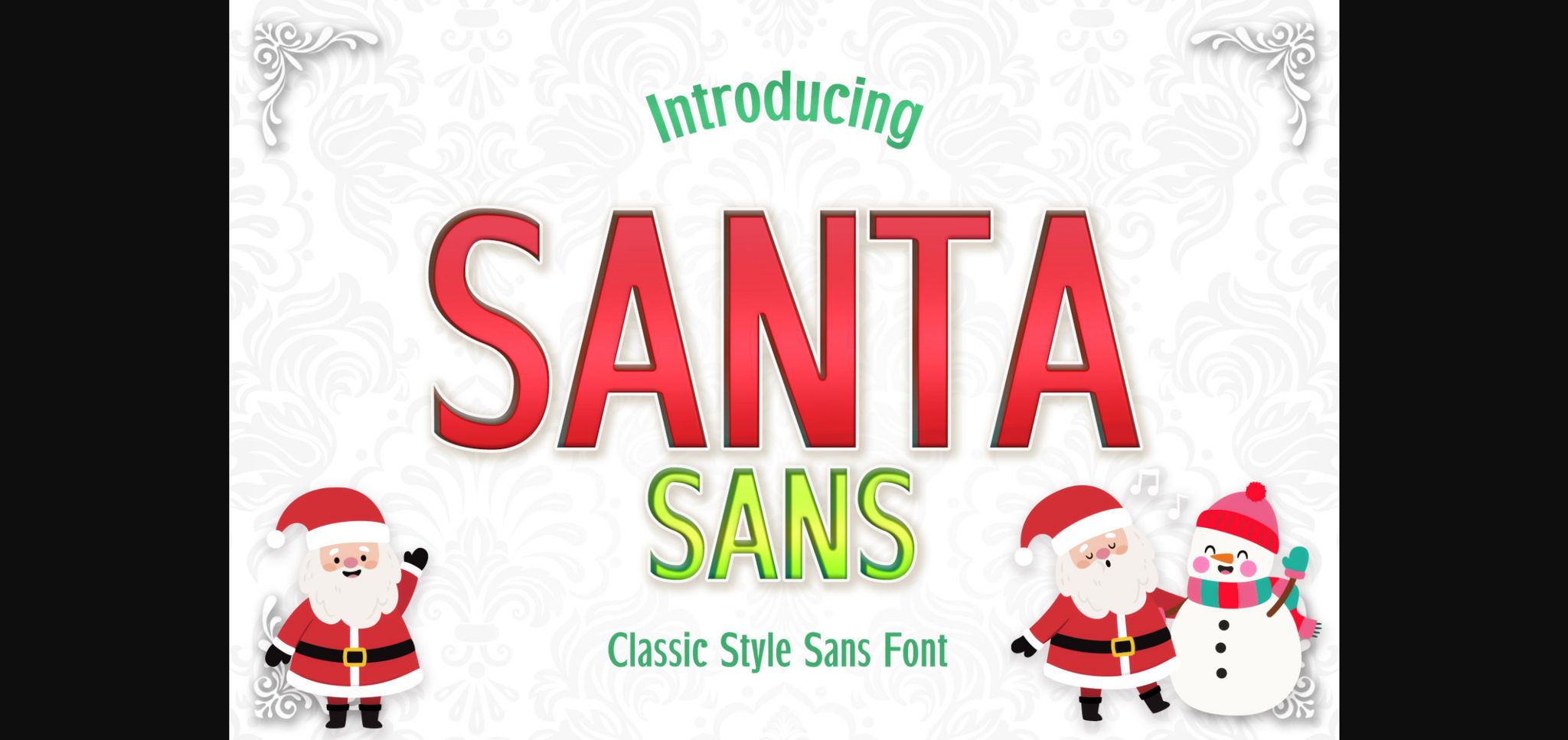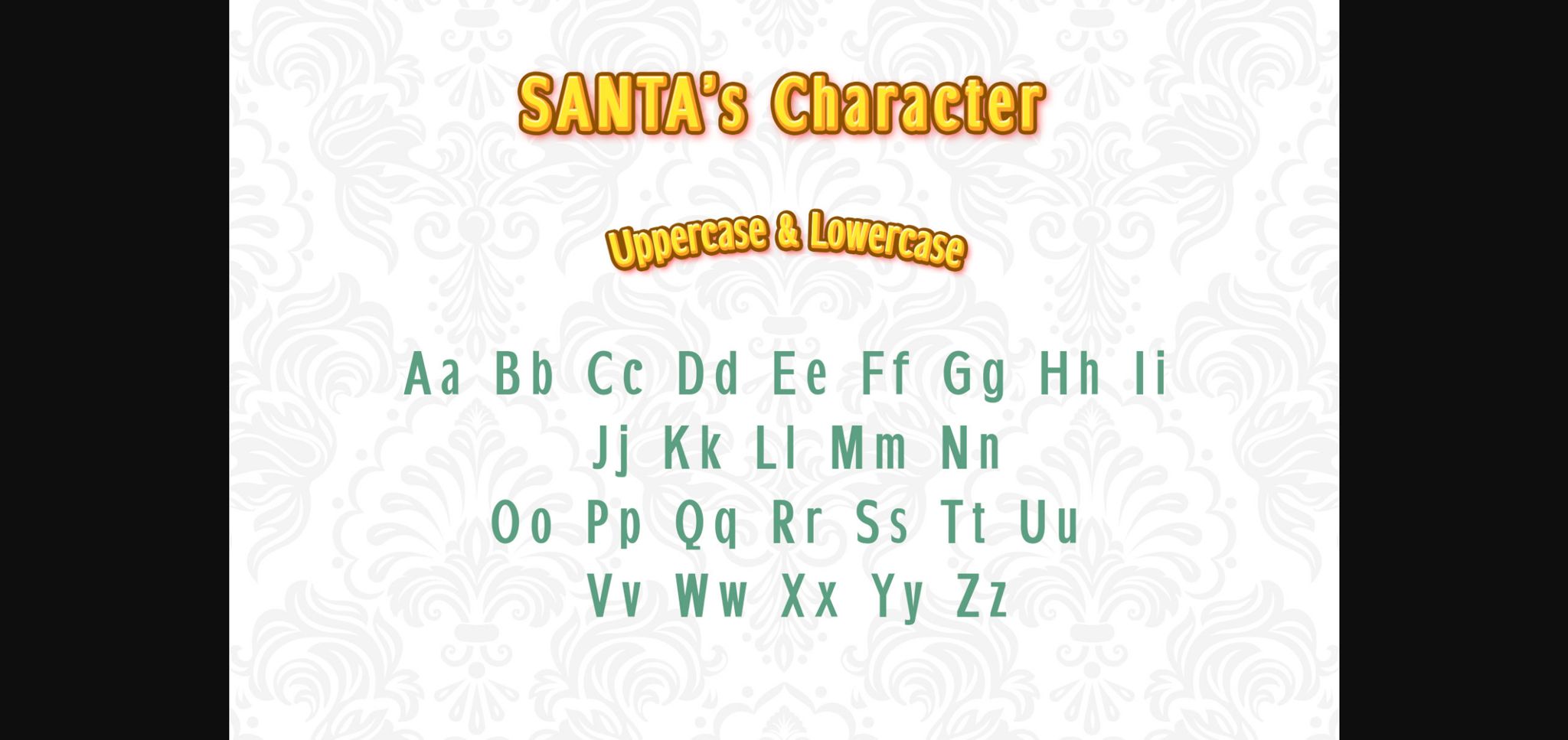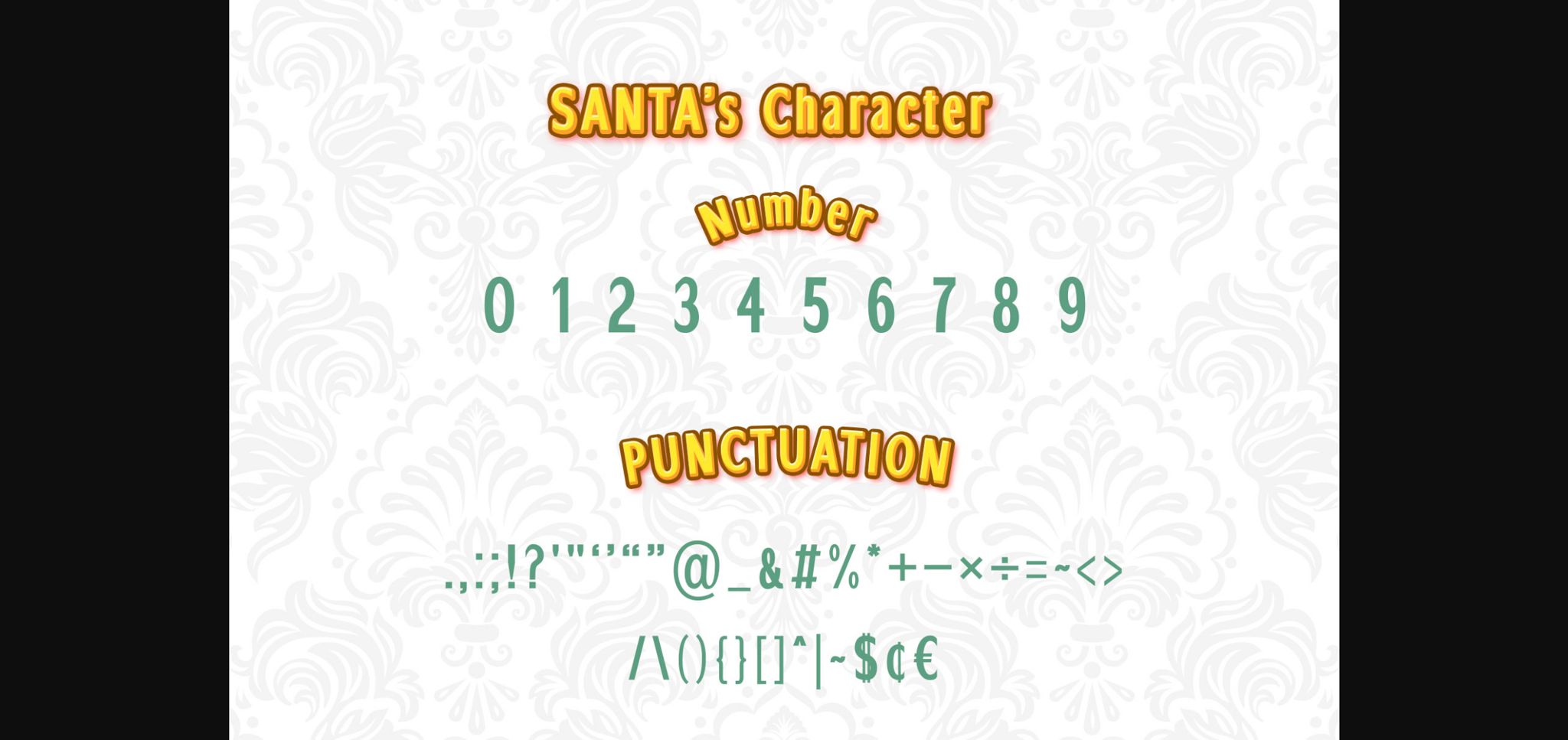
About Santa Font
Santa is a bold sans serif font. It can easily be matched to an incredibly large set of projects, so add it to your creative ideas and notice how it makes them stand out!